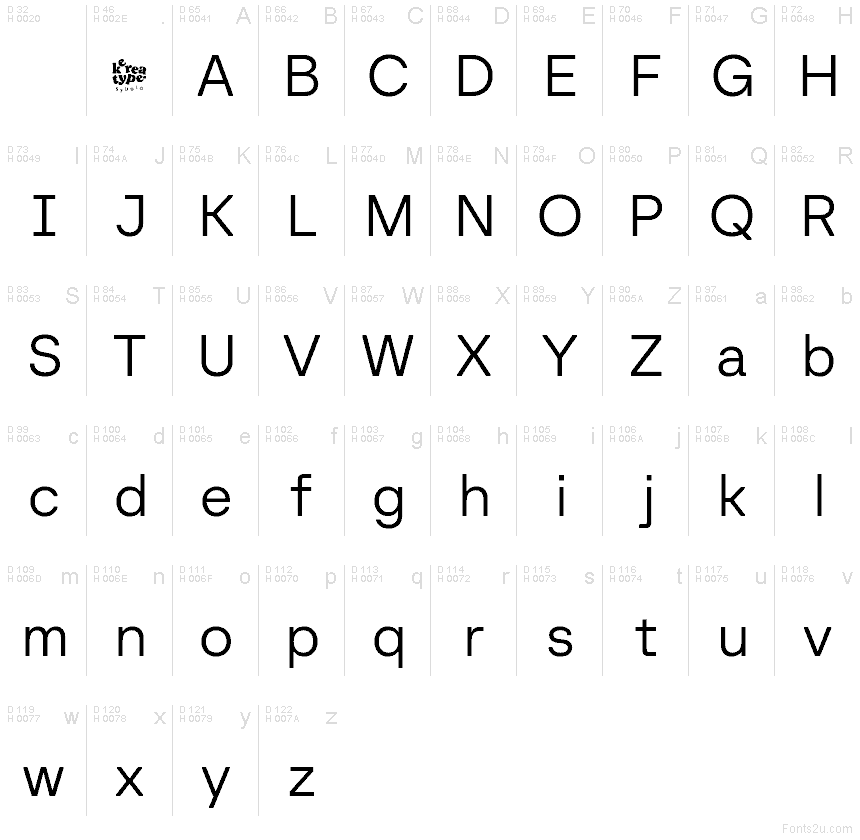
Baru Sans Demo Light
Baru Sans Light font by Kereatype Studio is a free sans serif typeface. As the light cut of the Baru Sans family, it brings a calm, breathable texture to text: slim strokes, open shapes, and steady rhythm that stay crisp on screen and in print. It reads like a deep breath—clean and modern without turning cold—so you get clarity without heaviness.
Using Baru Sans Light, microcopy and captions feel tidy, UI labels stay legible, and fashion lookbooks, tech landing pages, portfolios, and infographics gain a sleek, uncluttered polish. This free font shines on airy layouts; add a touch of letterspacing for headlines, or pair it with Baru Sans Bold to build effortless hierarchy.